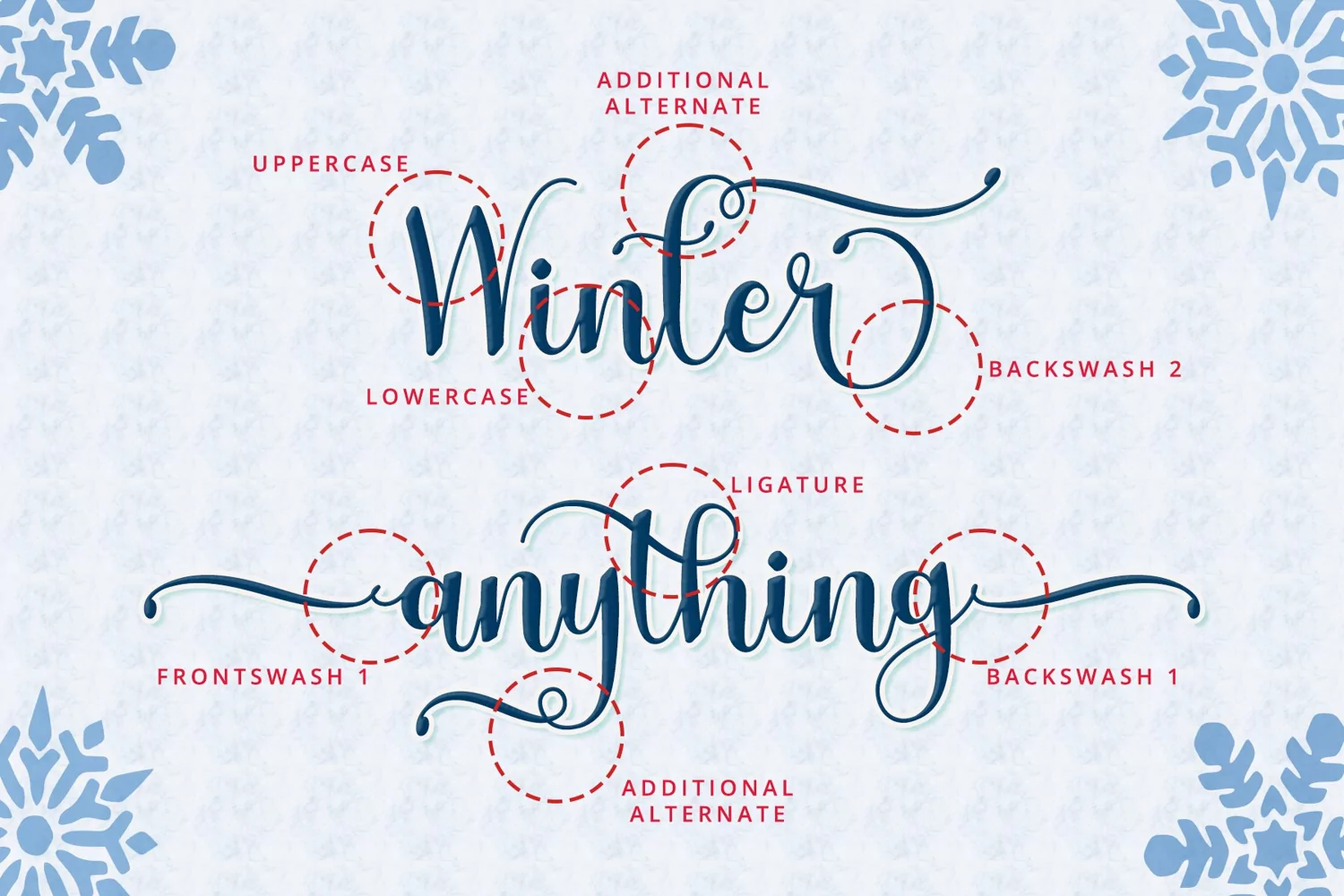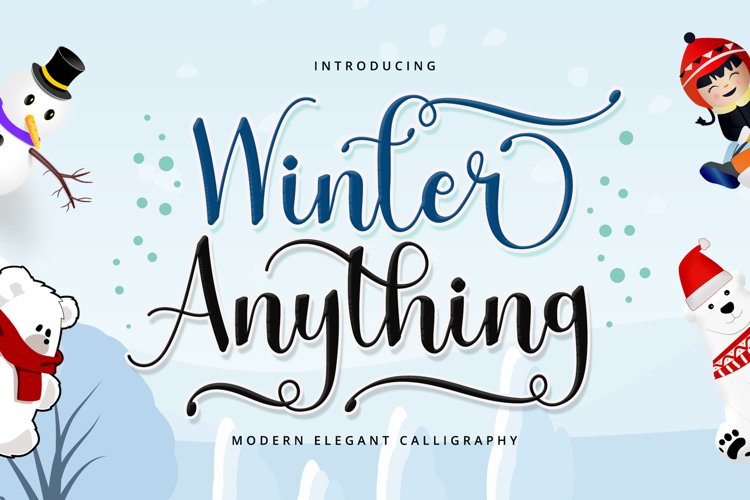
Winter Anything is beautiful elegant calligraphy font. It is flowing and sweet. It has many alternates characters to enrich the options in creating design.
+Tons of Glyphs, including beautiful alternate glyphs.